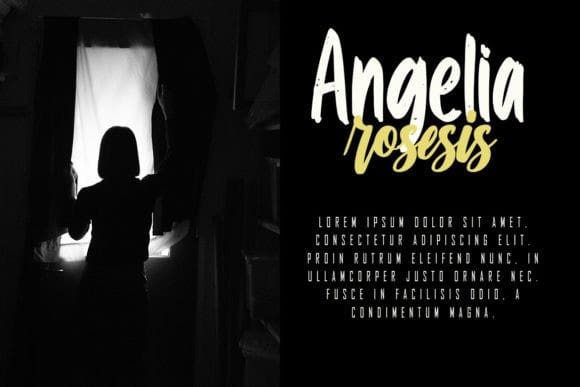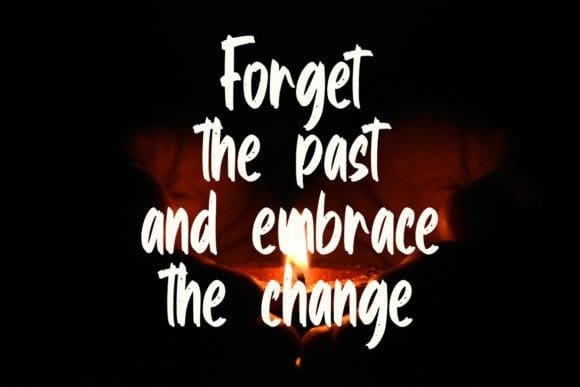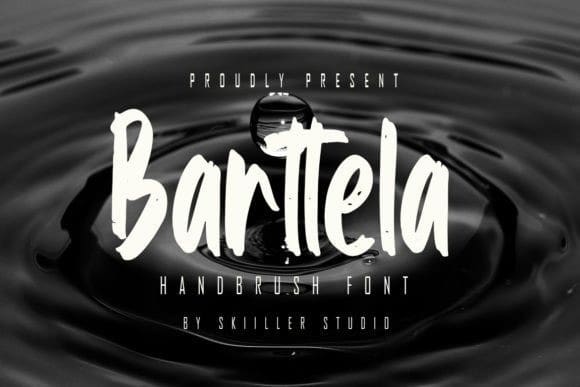
Barttela Brush Font
Barttela Brush Font is a modern brush display font, crafted to give your headlines and logotype projects a stylish touch. This font reads as strong, confident, and dynamic and can add tons of urban character to your designs.